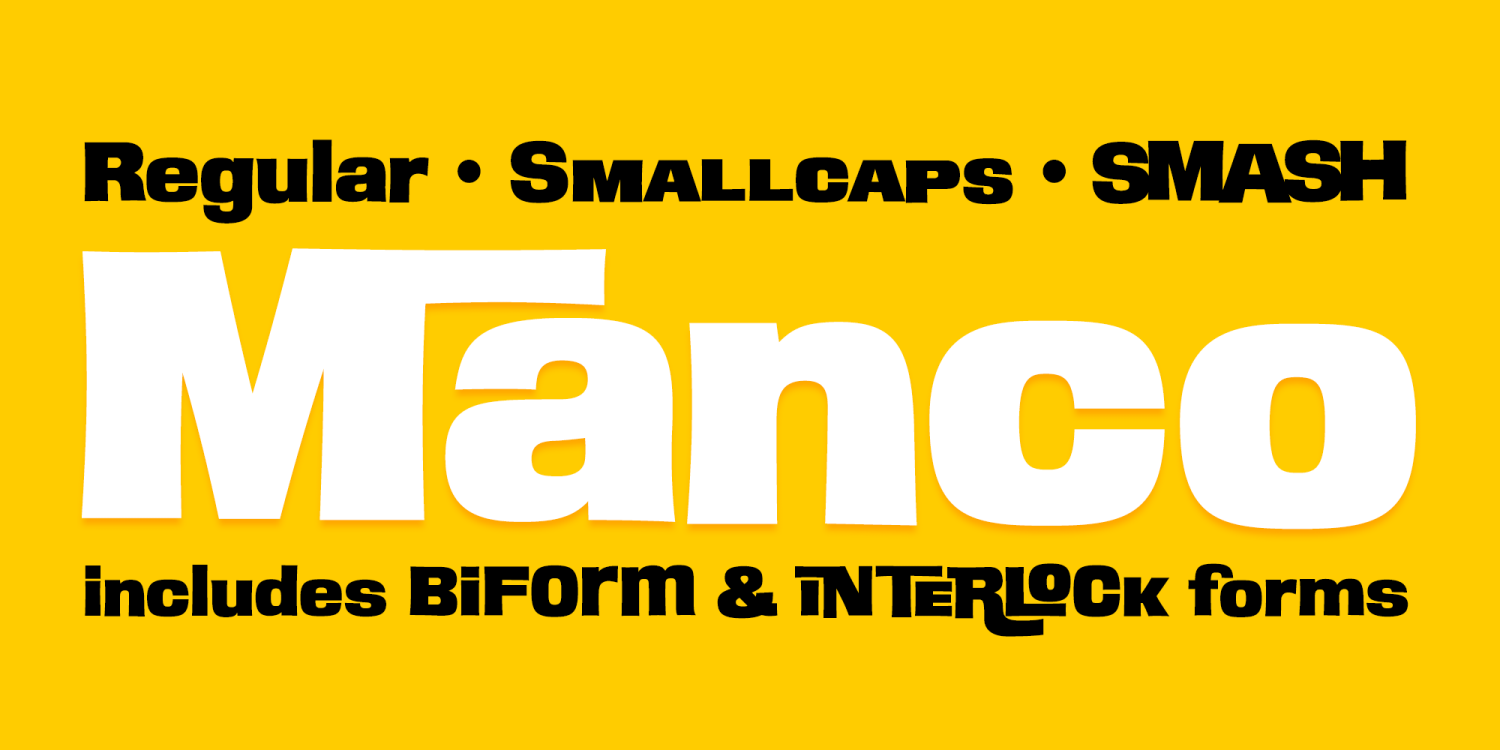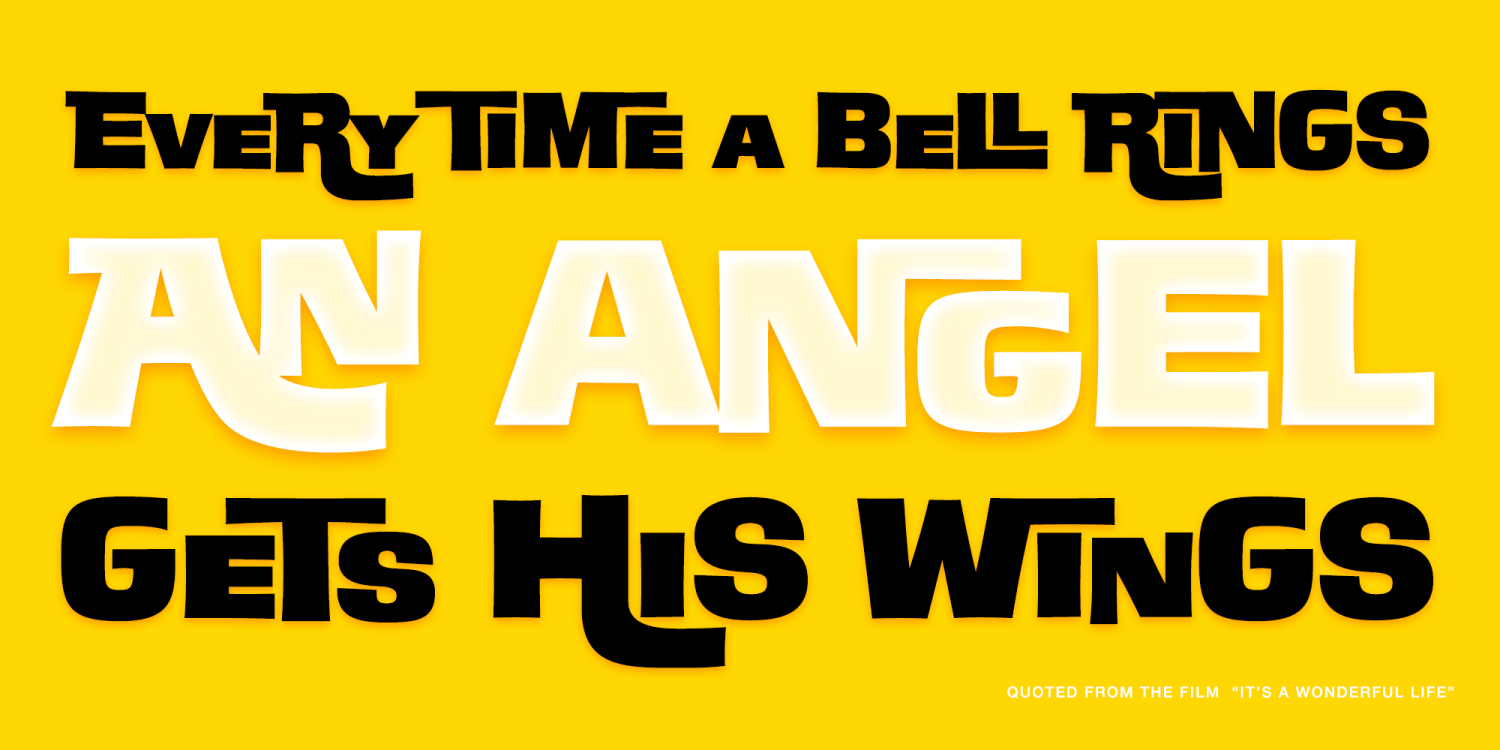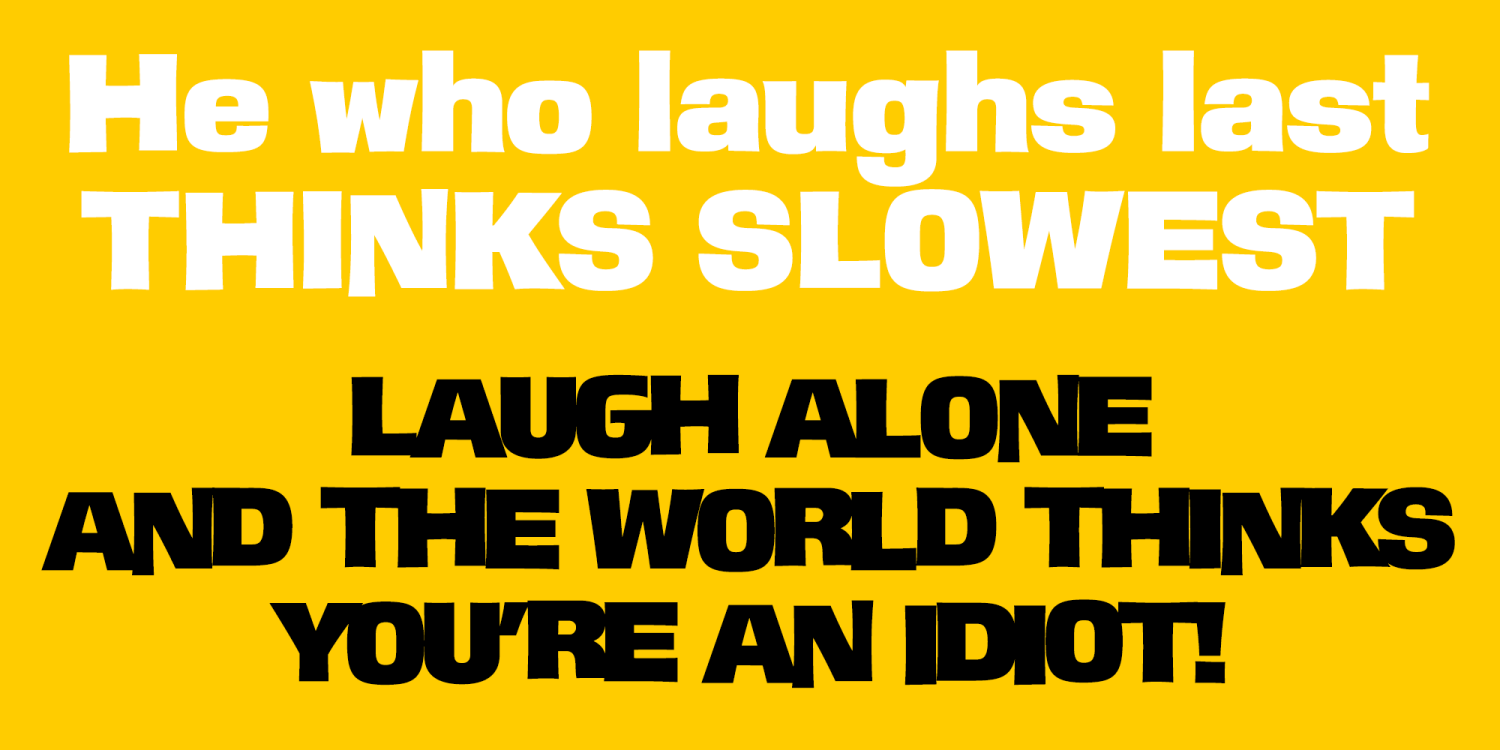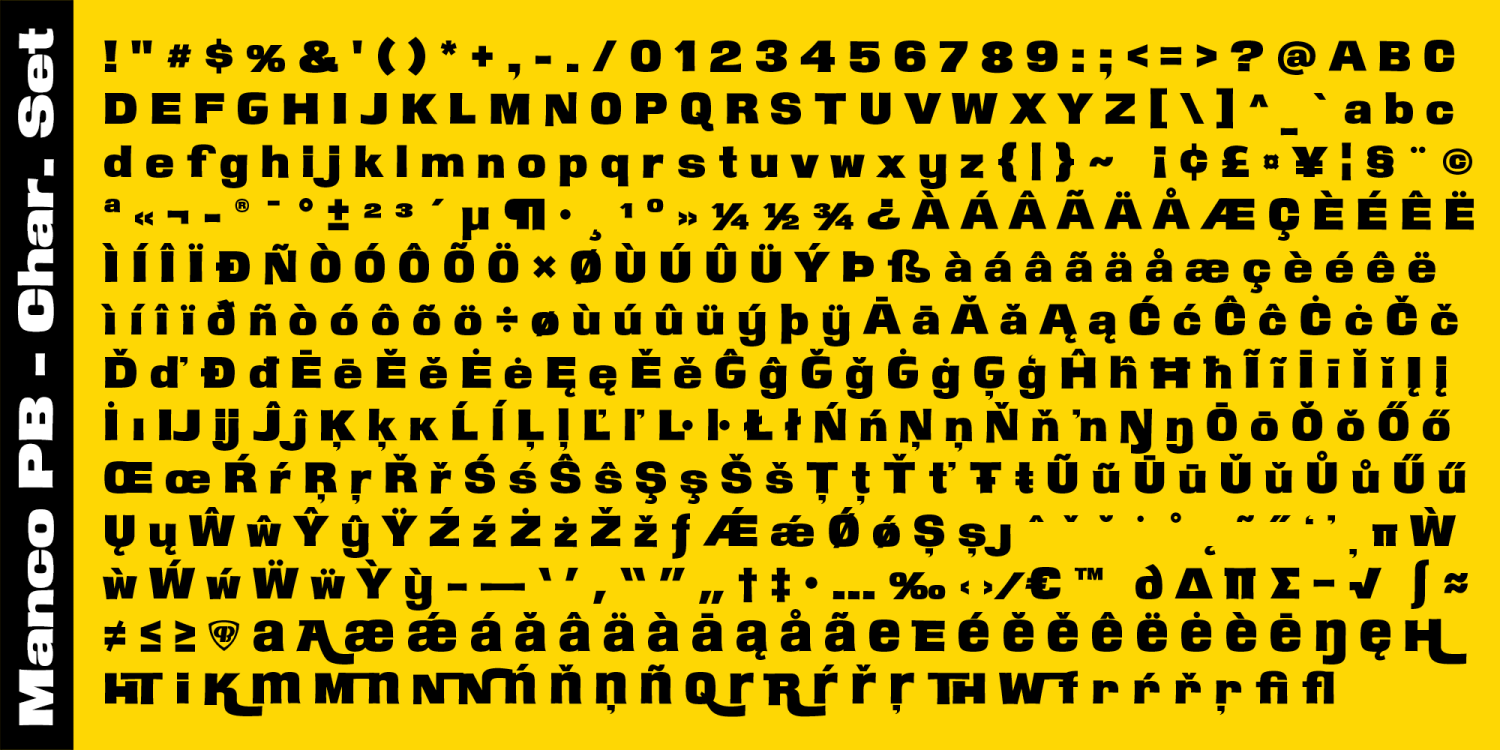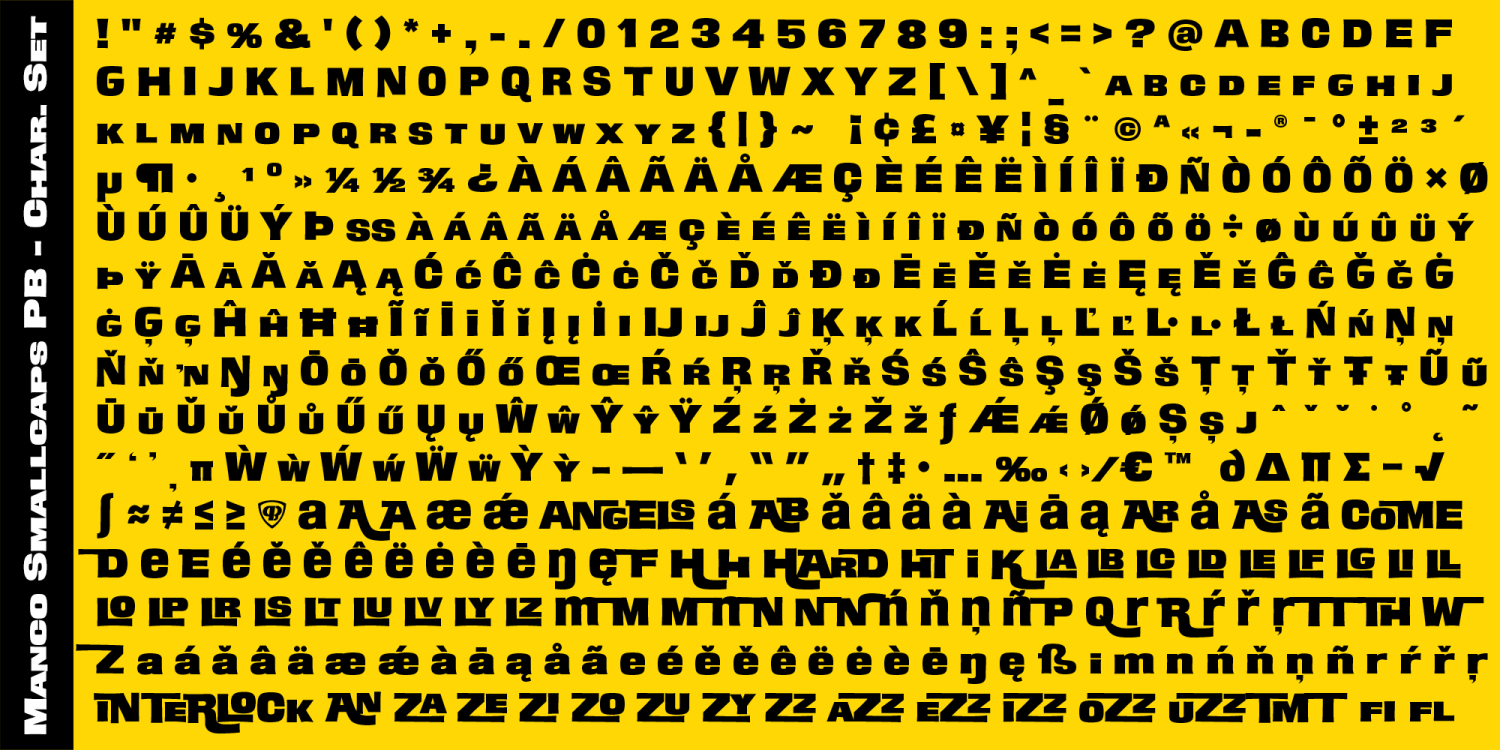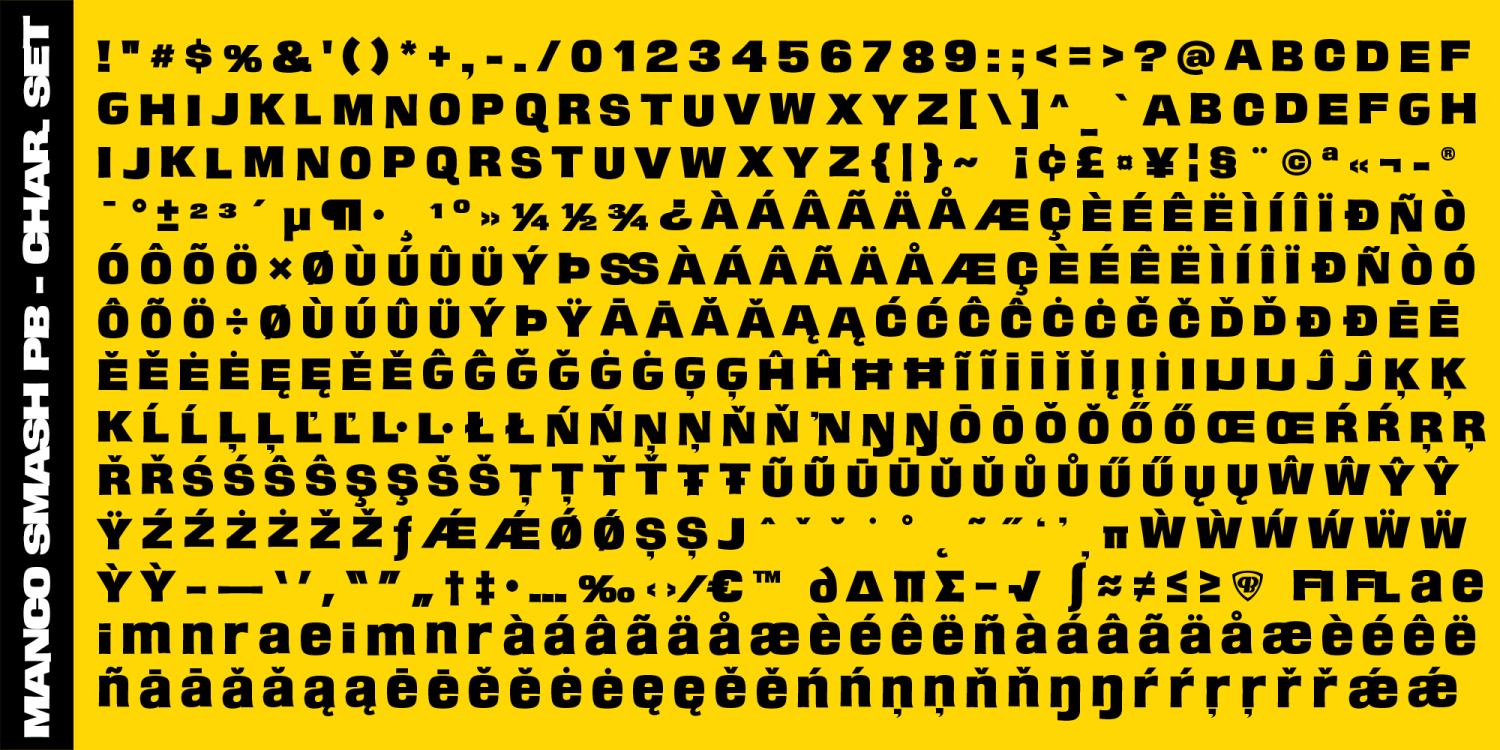
Manco PB
A macho sans-serif with a subtle flair, Manco PB started as a digitization of a 5 font film typeface family called Monza by LetterGraphics. Manco PB is a consolidation of that original family into 3 fonts: Regular (Casual), Smallcaps, and Smash - with the original “Biform” becoming a Stylistic Alternate feature in all of the fonts, and the “Interlock” becoming a Swash feature as swash Capitals within the Regular style, and a more robust true Interlocking within the Smallcaps style between Capitals and Smallcaps along with a collection of ligatures. For the Interlock look in Manco Smallcaps, enable Swash Alternates and play typing a mix of Capitals and lowercase (smallcaps) or pick and choose through the glyphs palette.
If you're wondering where you might recognize this typestyle from, you may have seen it on posters for the 1971 motorcycle film, "Angels Hard as They Come".
So are you ready to toughen up and take on the design highways with Manco PB? Legibility, adaptability, and playfulness all in one.